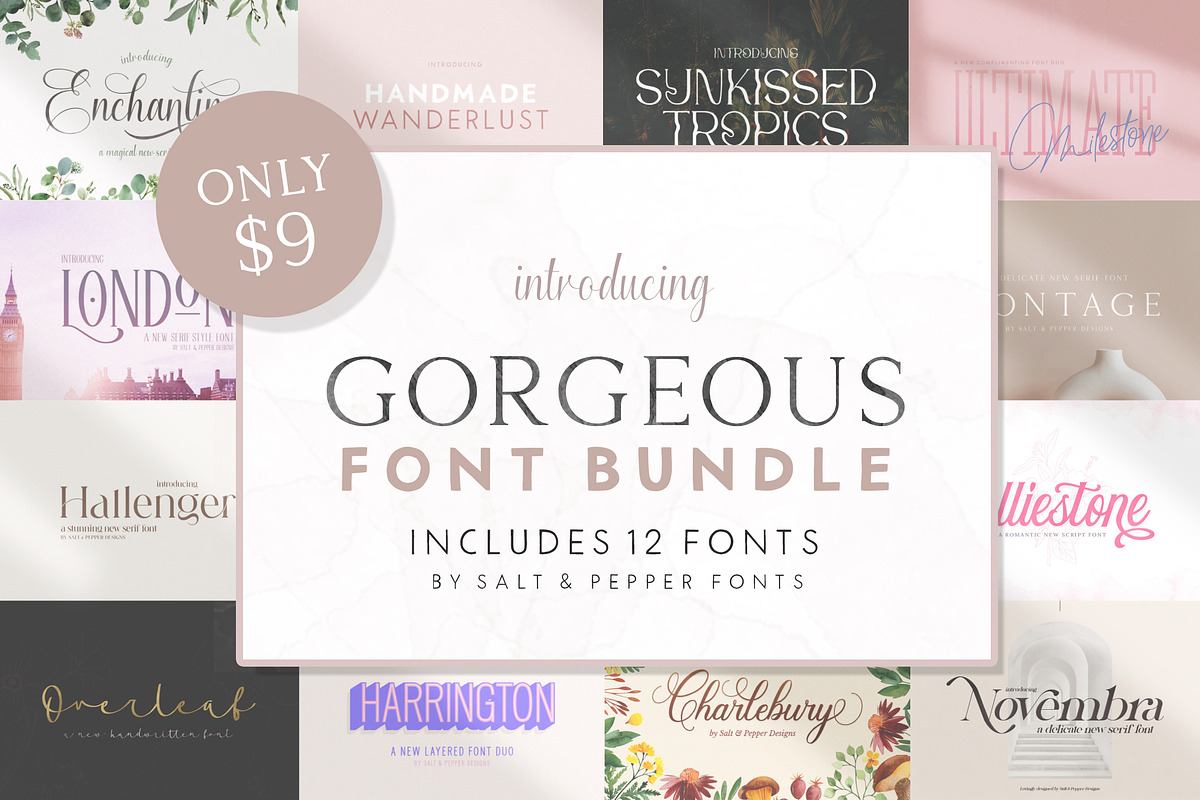
The Gorgeous Font Bundle Free Download is a stunning collection of diverse fonts designed to bring elegance, beauty, and versatility to your design projects. This bundle includes a wide variety of typefaces, from delicate scripts and modern serifs to clean sans-serifs and bold display fonts—perfect for branding, wedding invitations, logos, posters, social media graphics, and more.
With this collection, you'll have all the font styles you need to create cohesive and stylish designs, whether you're working on a luxury brand, a chic event, or a creative editorial project. The Gorgeous Font Bundle is your go-to for adding a touch of class and sophistication to every project.